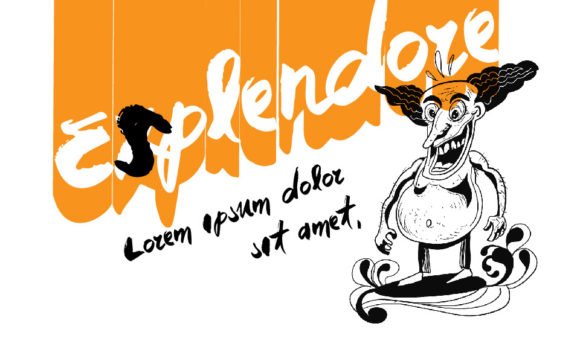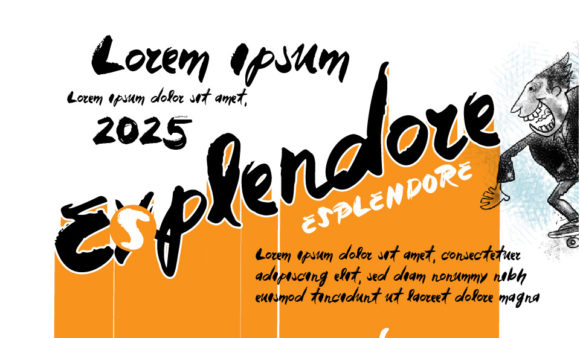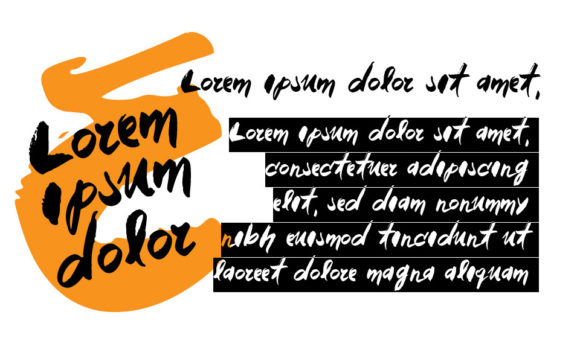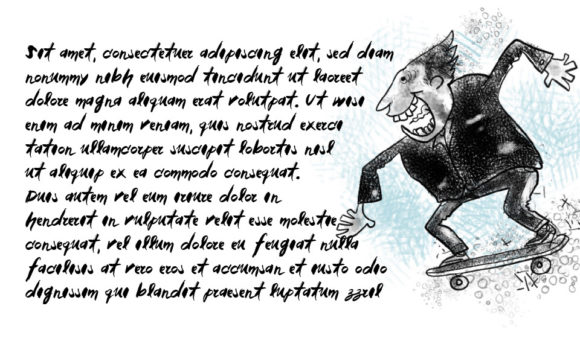
The Perfect Blend of Fun and Authenticity
Have you ever stared at a blank page, your mind racing with ideas, but struggling to put them into words? You’re not alone. Many designers face this challenge daily. But what if you had the perfect tool to bring your creativity to life? That’s where the Espledore Font comes in – a script font that embodies the essence of fun, quirkiness, and authenticity.
Designed to add an authentic touch to your next design, the Espledore Font is more than just a typeface – it’s a statement piece. Its unique charm and character make it a valuable asset for designers who want to stand out from the crowd. Whether you’re working on a branding project, a marketing campaign, or a creative blog, the Espledore Font is sure to bring a touch of personality to your work.
Espledore Font Key Features
- Font Size: 20 fonts in 7 different weights and styles (Thin, Light, Regular, Medium, Bold, Extra Bold, Black)
- Language Support: Multilingual support for over 200 languages, including Latin, Cyrillic, Greek, and more
- Unique Characteristics: Distinctive, modern design with a unique blend of geometric and organic elements
Espledore Font Review
I recently had the chance to work with the Espledore font, and I must say it’s been an interesting experience. Let’s dive into what I think works well and what doesn’t.
- The Espledore font has a unique, elegant feel to it. It’s perfect for designs that need a touch of sophistication.
- The font’s irregularities give it a handmade feel, which can be quite charming.
- The font is highly customizable, allowing you to adjust the spacing, weight, and other aspects to fit your design needs.
- The Espledore font can be quite difficult to read in smaller sizes. It’s best used in larger, more prominent contexts.
- The font’s irregularities can sometimes make it difficult to pair with other fonts, as it can clash with more uniform typefaces.
- The font’s customization options can be overwhelming for beginners, making it difficult to achieve a cohesive look.
Overall, I think the Espledore font is a solid choice for designers looking to add some personality to their work. However, it may not be the best fit for every project. With a bit of practice and patience, you can unlock the font’s full potential and create some truly stunning designs.
Getting the Most Out of Espedore Font
Some tips to get the most out of Espedore Font include:
– Using it for headings and titles to add visual interest to your designs.
– Combining it with other fonts to create a unique and stylish look.
– Experimenting with different font sizes and styles to find the perfect fit for your design.
Some common use cases for Espedore Font include:
– Creating stylish headings and titles for websites and social media.
– Adding a touch of elegance to business presentations and reports.
– Designing eye-catching posters and flyers for events and promotions.
Alternatives to Espledore Font
Great Vibes is a beautiful, handwritten font perfect for creating a sense of elegance and sophistication. It’s ideal for use in invitations, wedding stationery, and other high-end designs. Compared to Espledore Font, Great Vibes has a more refined and polished look, making it suitable for formal occasions.
Carolyna Pro is a modern, elegant script font that’s perfect for use in branding, packaging, and advertising. Its versatility and sophistication make it a great alternative to Espledore Font. Carolyna Pro has a more refined and precise look, making it suitable for a wide range of designs.
Alex Brush is a elegant, handwritten font that’s perfect for use in editorial, advertising, and packaging designs. Its organic and flowing lines give it a unique and personal touch, making it a great alternative to Espledore Font. Alex Brush has a more relaxed and natural look, making it suitable for creative and artistic designs.
Are there any font customization options available for Espledore Font?
Yes, Espledore Font is designed to be highly customizable. You can adjust font size, line height, letter spacing, and other parameters to suit your design needs. Additionally, the font supports advanced features such as ligatures, swashes, and ornaments, which can be accessed through your design application’s font menu.